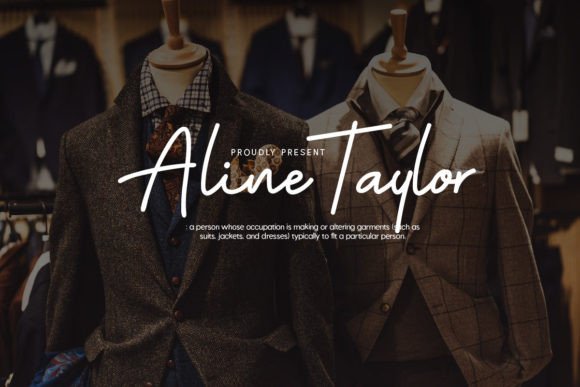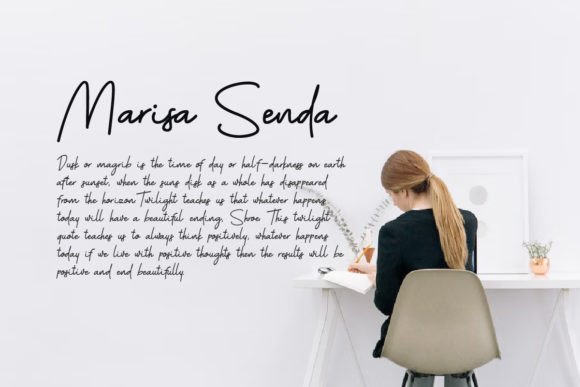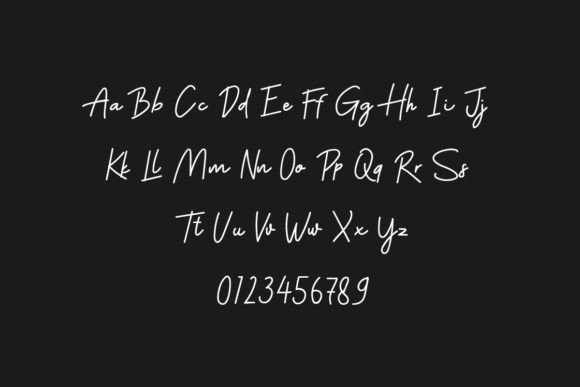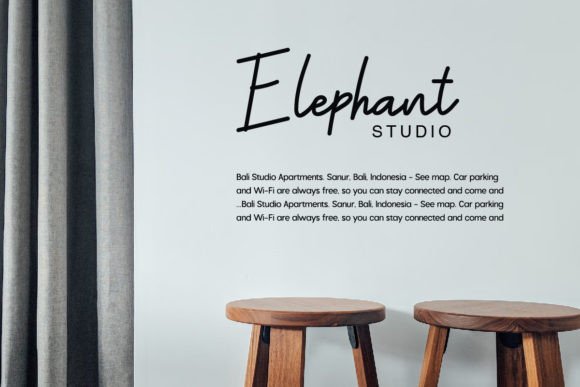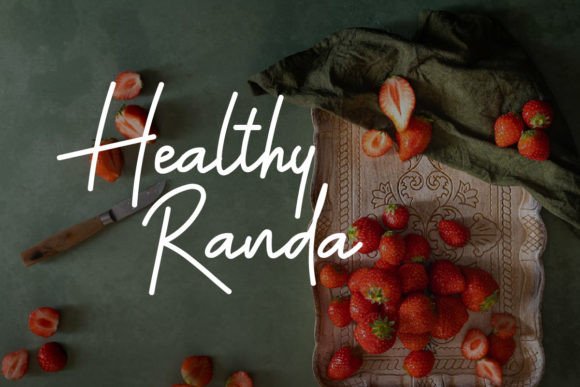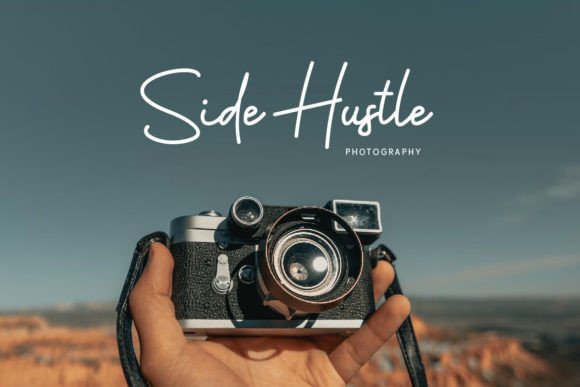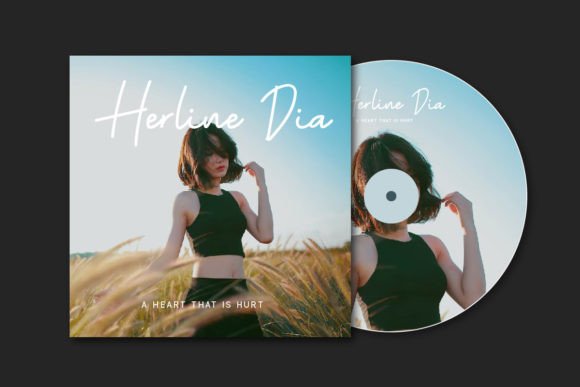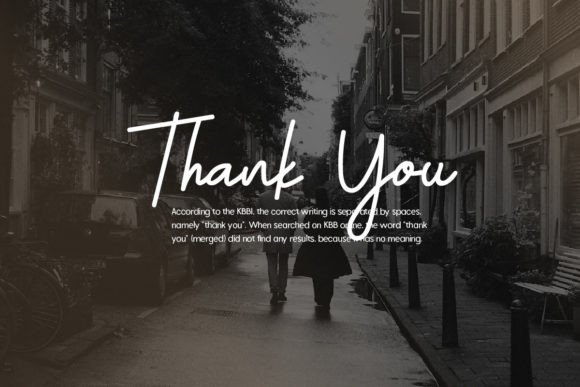
Hello Dine Font
About Hello Dine Script Font
Hello Dine Script Font is a carefully crafted signature typeface that adds natural beauty and sophistication to your creative projects. With flowing strokes, smooth lines, and refined proportions, it captures the charm of handwriting while offering a polished, professional appearance. Because of its versatility, Hello Dine Script Font is perfect for invitations, logos, posters, packaging, branding, wedding stationery, and social media graphics.
A Script Typeface with Natural Elegance
Handwritten fonts often bring warmth and individuality, and Hello Dine Script Font embodies these qualities perfectly. Its strokes are neat yet relaxed, creating a balanced style that feels both casual and elegant. In addition, the design ensures excellent readability, making it suitable for both personal and professional use.
Special events require fonts that stand out with charm, and Hello Dine Script Font is a wonderful choice. For example, it enhances wedding invitations, thank-you cards, and event menus with a sophisticated touch. Moreover, it adds beauty to seasonal greeting cards, birthday stationery, and festive designs, ensuring every project feels special.
A Handwritten Typeface for Branding and Packaging
Designers and businesses can rely on Hello Dine ScriptFont for impactful branding. It looks stunning on boutique logos, product packaging, and promotional materials. Furthermore, it adapts seamlessly to advertising layouts, magazine spreads, and social media graphics. When paired with clean sans serif fonts, it creates a polished and professional identity.
Flexible Across Print and Digital Media
Another strength of Hello Dine ScriptFont is its adaptability across platforms. In print, it elevates posters, brochures, and merchandise with sophistication. Digitally, it integrates smoothly into blogs, websites, and online stores. Since it scales perfectly from small labels to large banners, it guarantees consistency and readability across all formats.